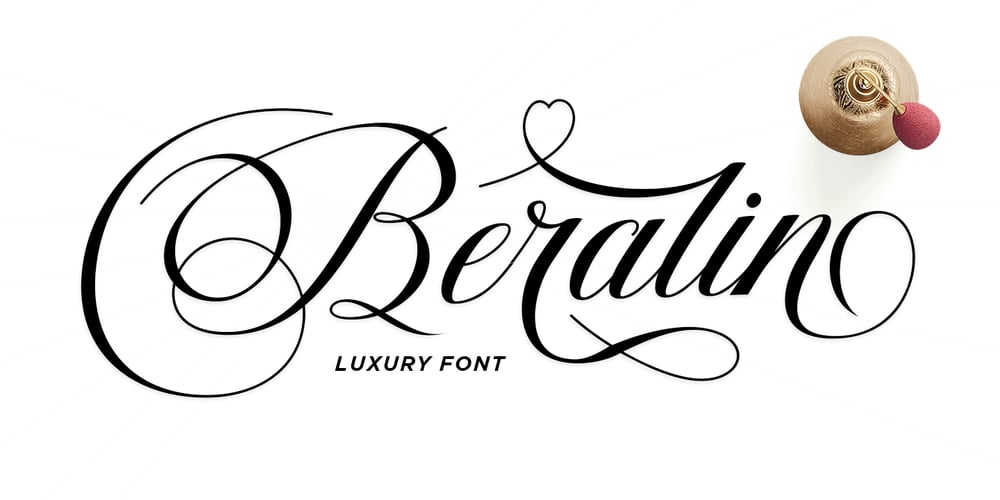
Beralin Font Family was designed by Amri and published by Alterspieler. Beralin contains 1 styles and family package options. Beralin is a calligraphy script font that comes with lovely alternates characters. a mixture of from copperplate calligraphy with handlettering style. Beralin is attractive like a smooth, sensual, glamorous, clean, feminine, simple and highly legible typeface. Its classic style is perfect to be applied in any type of formal pieces such labels, menus, make up, Logos, fashion, stationery, letterpress, romantic novels, magazines, books, packaging, labels. OpenType features with stylistic alternates, ligatures and swash characters, including multiple language support. that allows you to mix and match pairs of letters to fit your design.